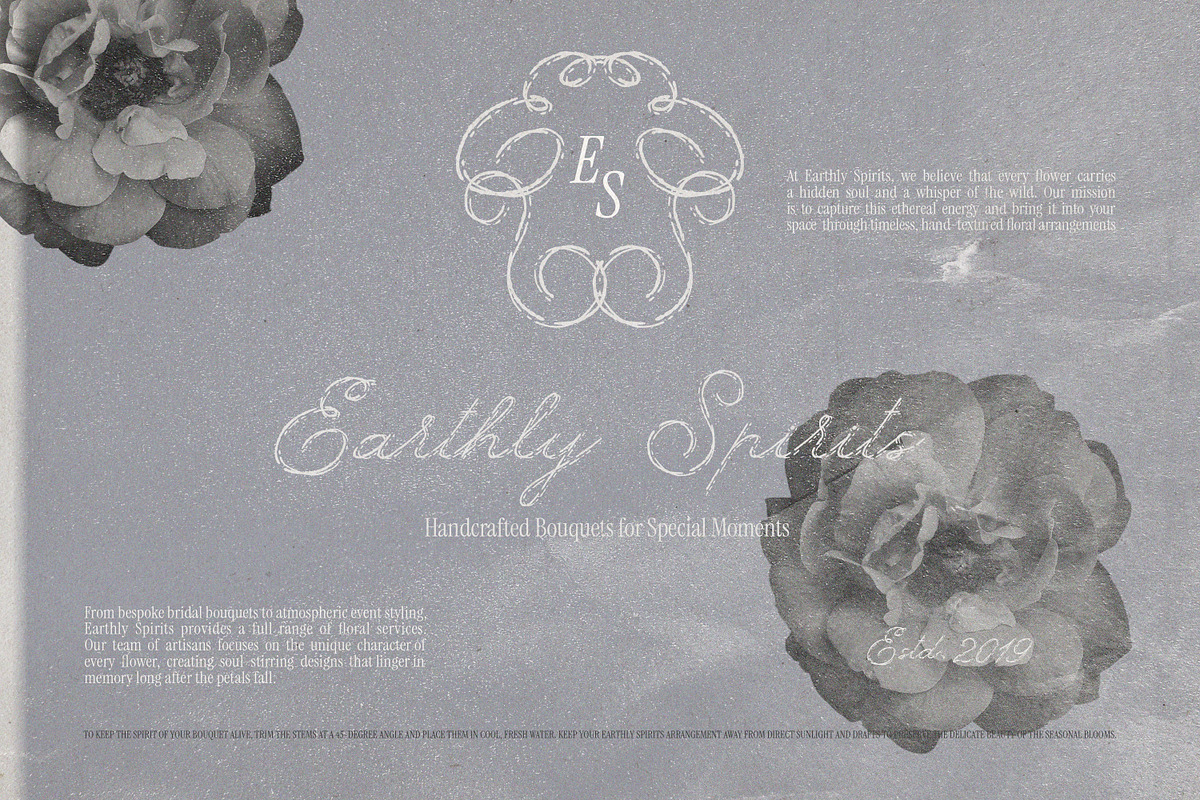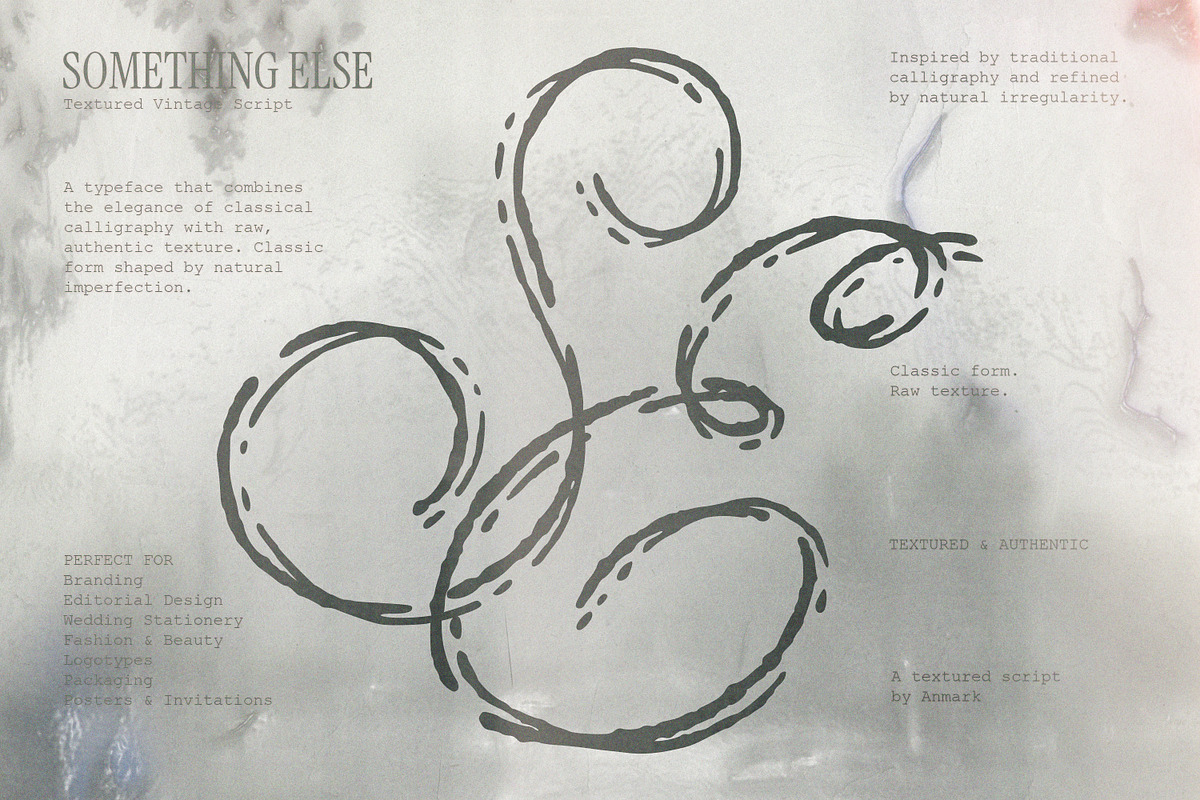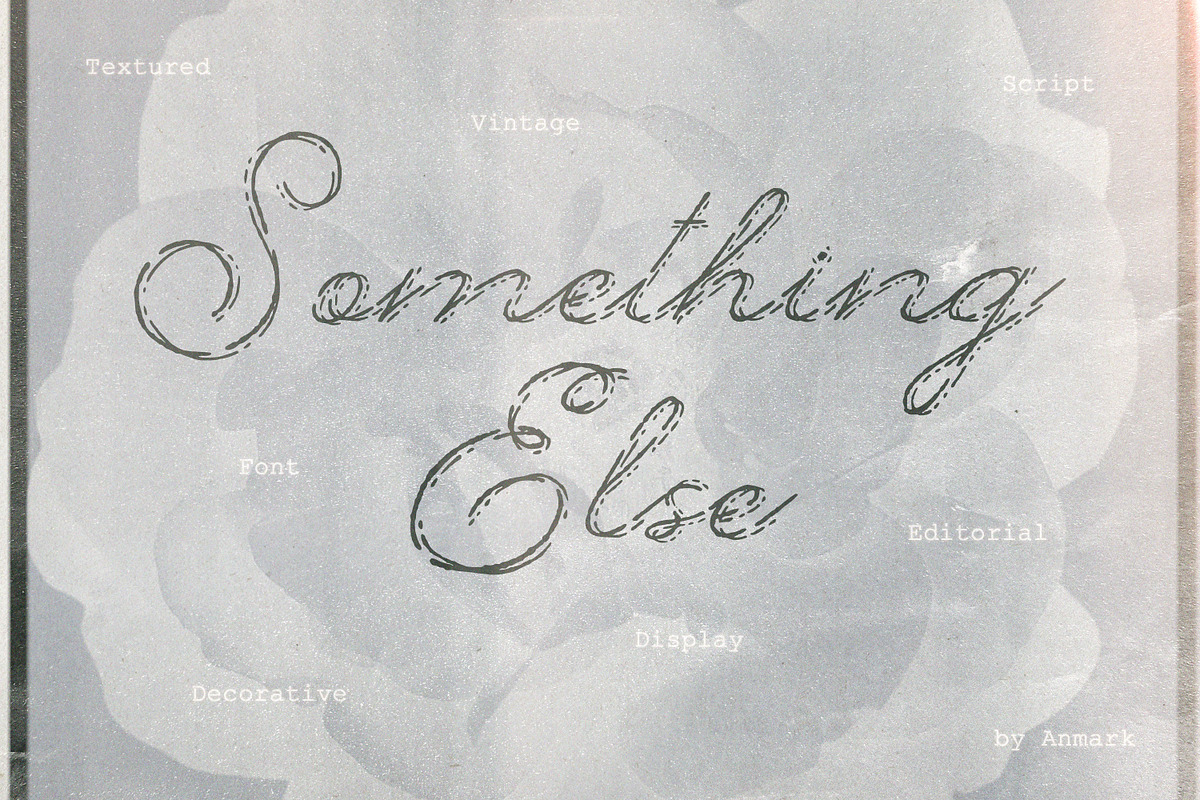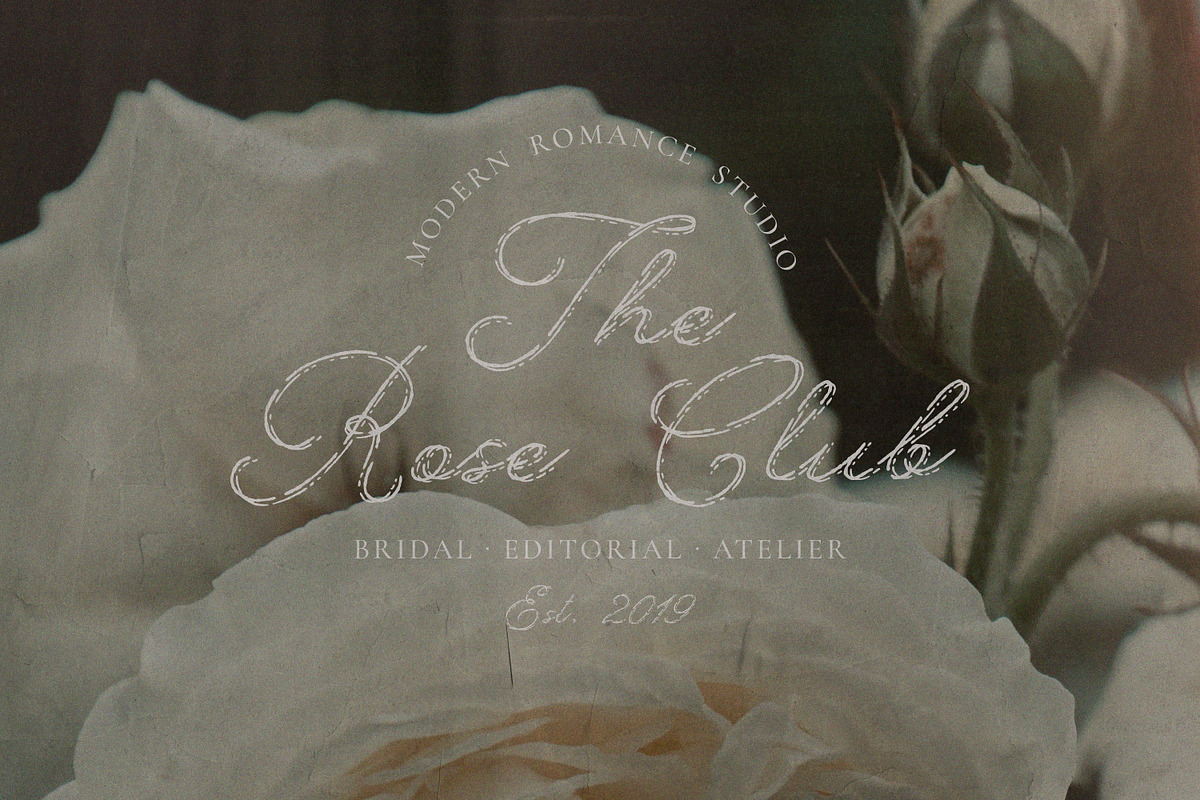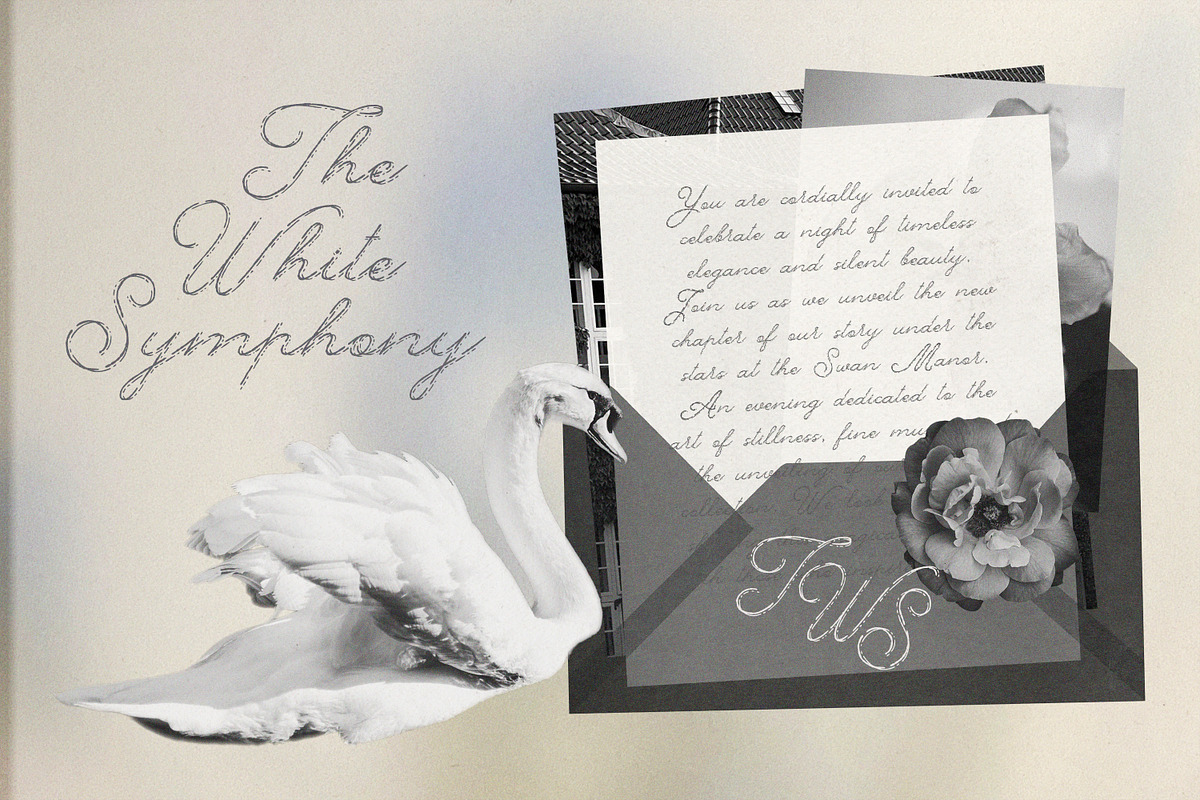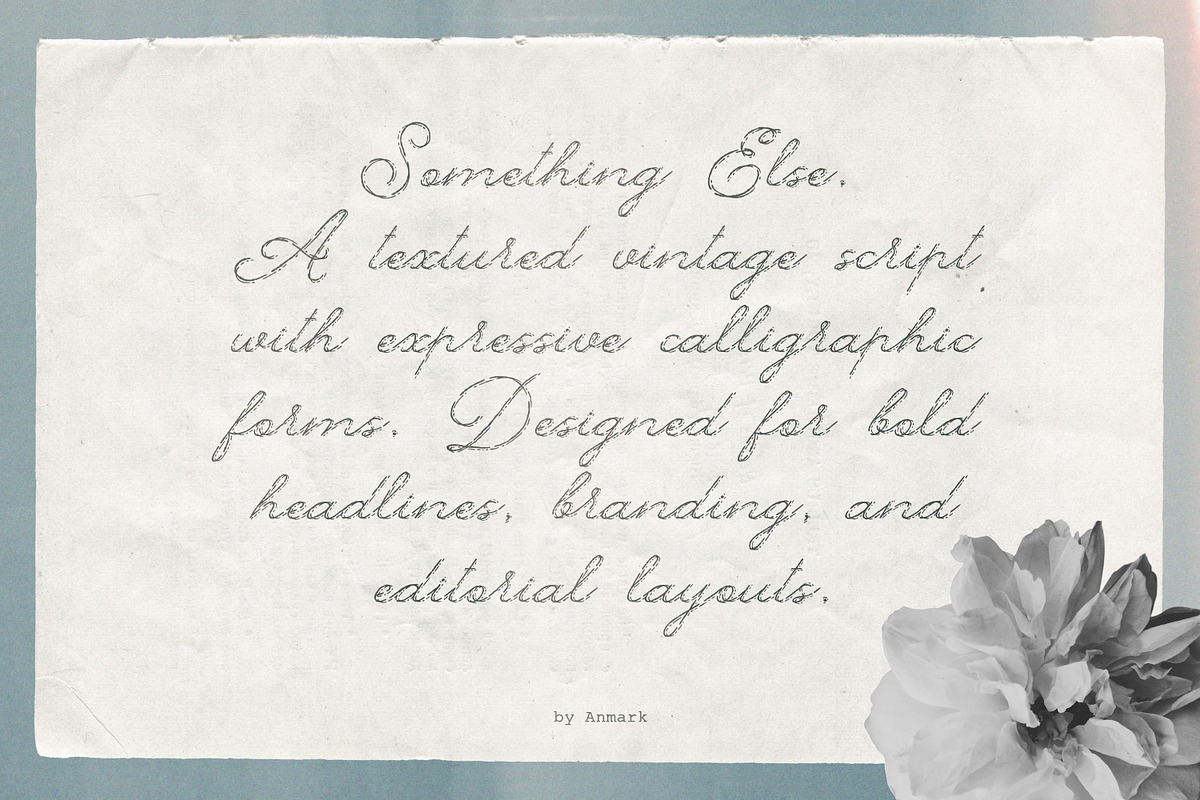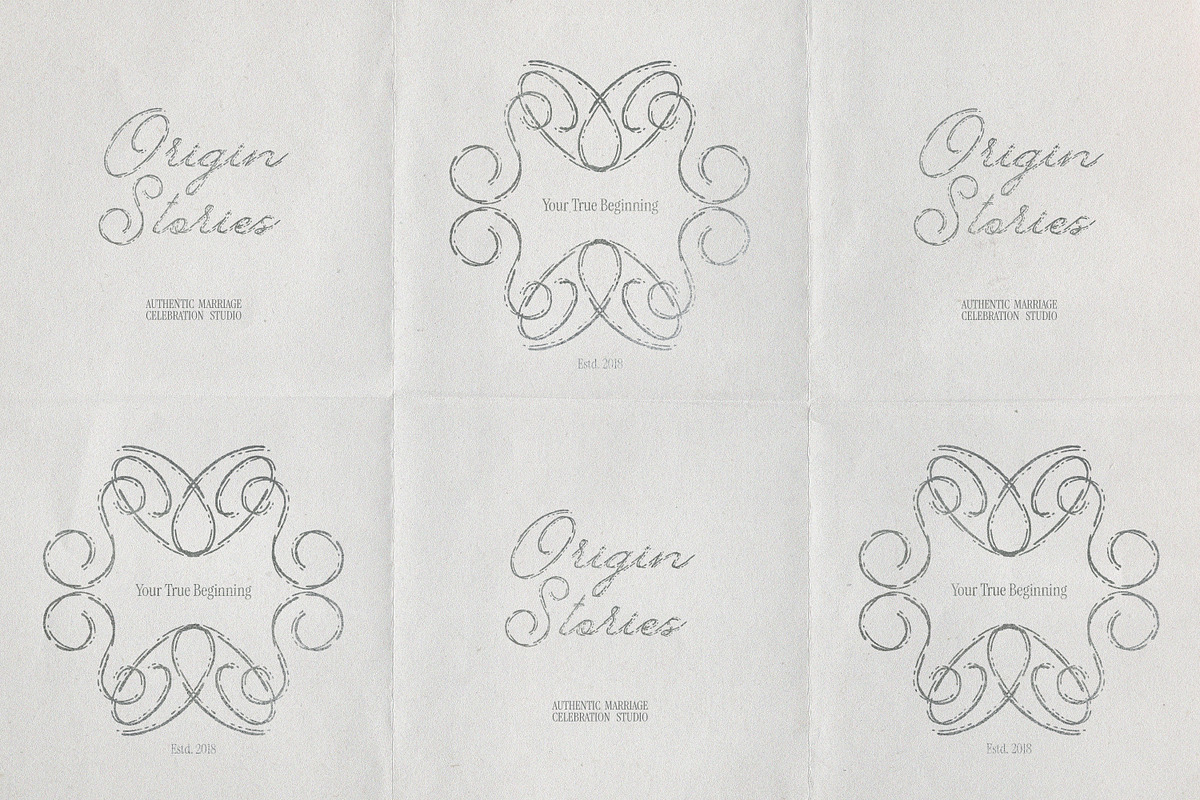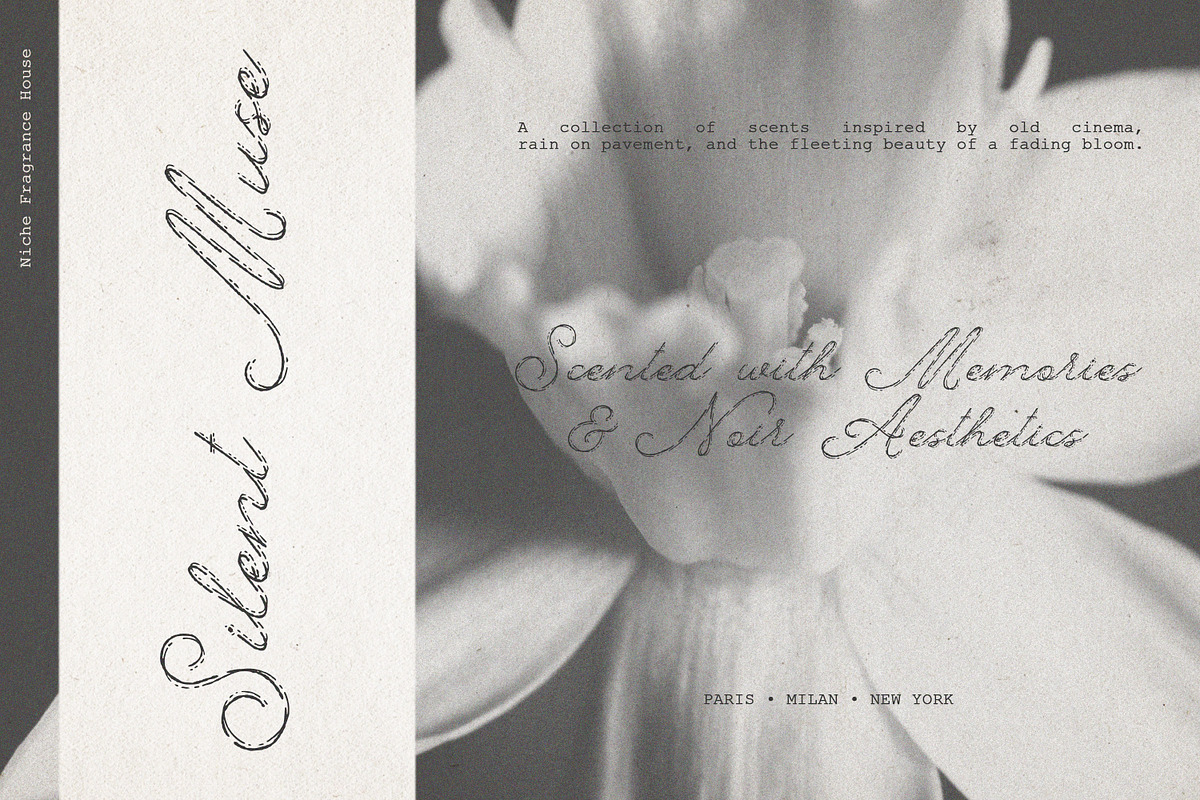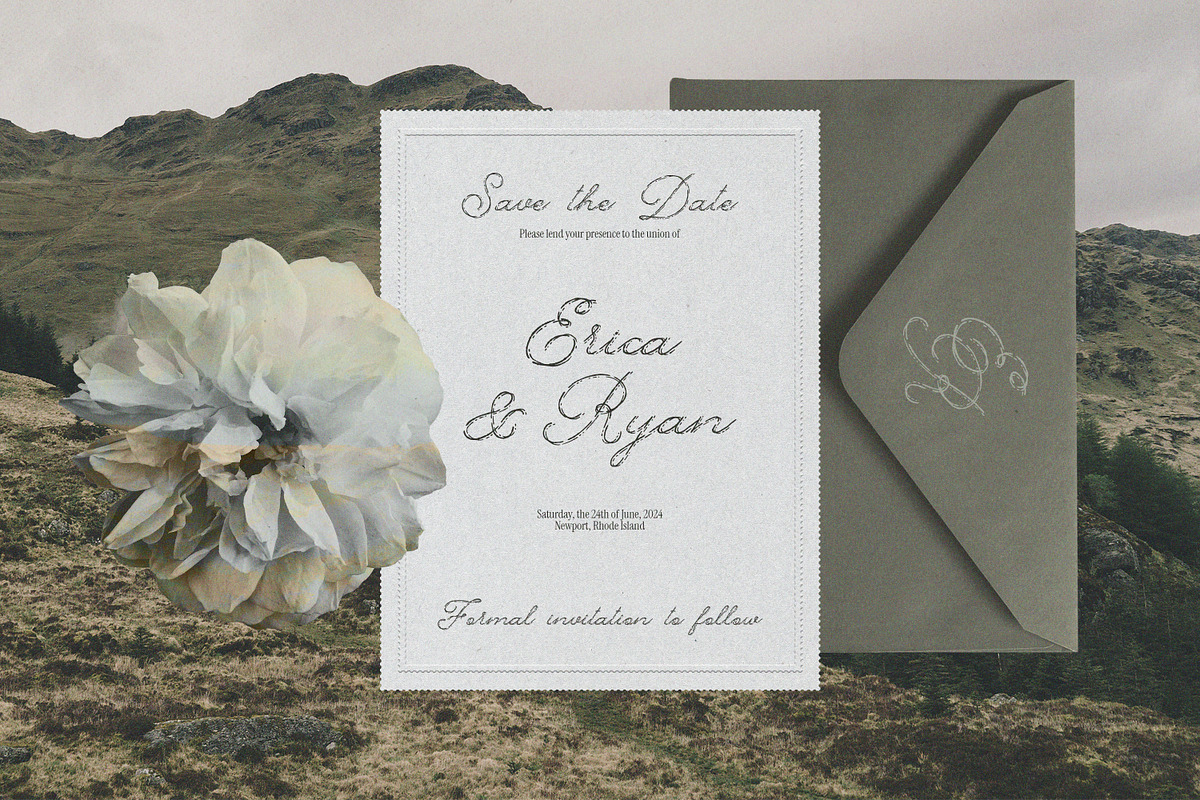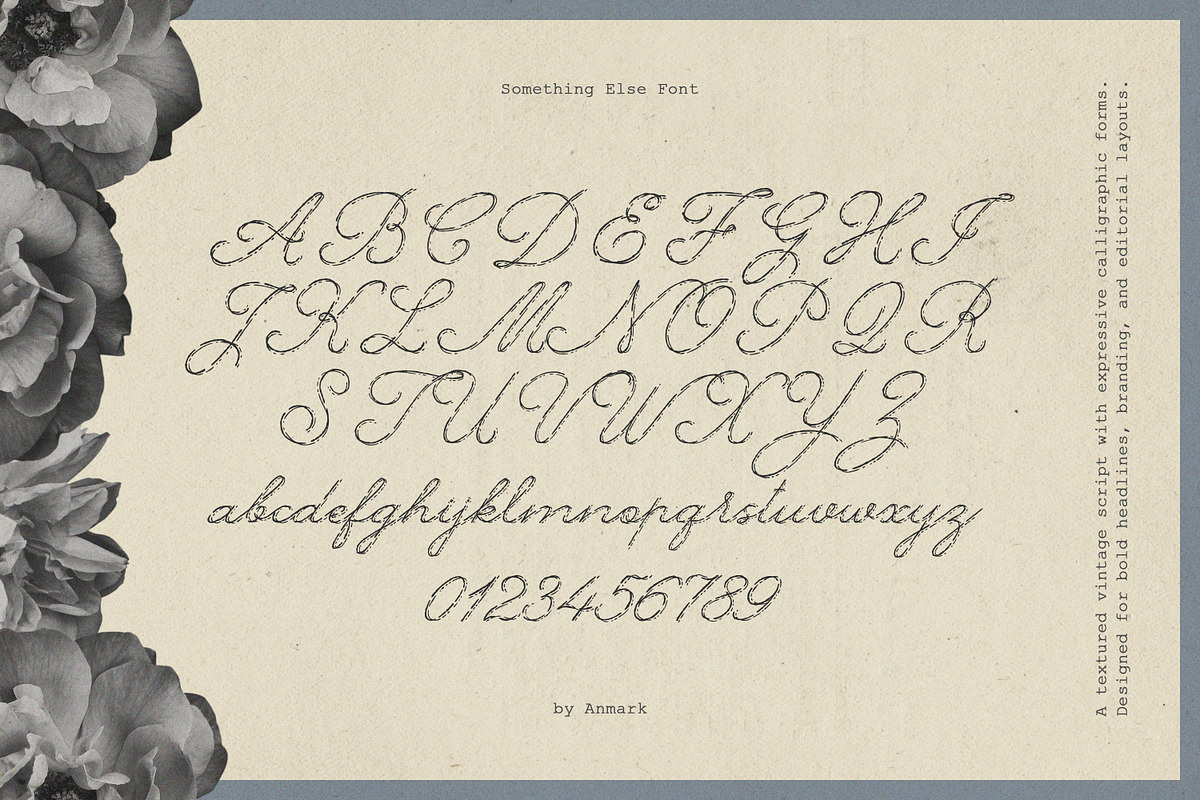
Something Else Textured Script
Something Else is a textured vintage script font inspired by classical calligraphy and shaped by natural imperfection.
Its letterforms combine structured calligraphic foundations with raw, organic texture, creating a balance between refinement and expressive character. The surface detail adds depth and tactile presence, making each word feel intentional and distinctive.
Designed as a display typeface, it works beautifully for branding, fashion editorials, wedding stationery, logotypes, packaging, posters and invitations.
Something Else brings clarity, contrast and visual strength to layouts that require personality without losing elegance.